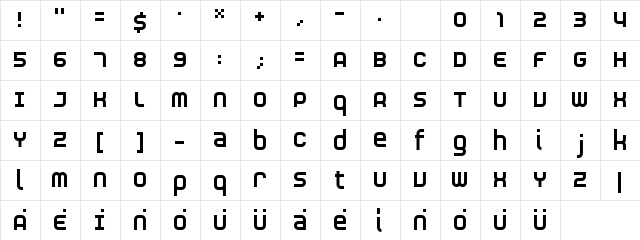
RNS SERIAL Regular
Design Context for RNS SERIAL Typeface
RNS SERIAL is a composed and adaptable typeface that performs quietly and consistently across a wide range of design contexts.